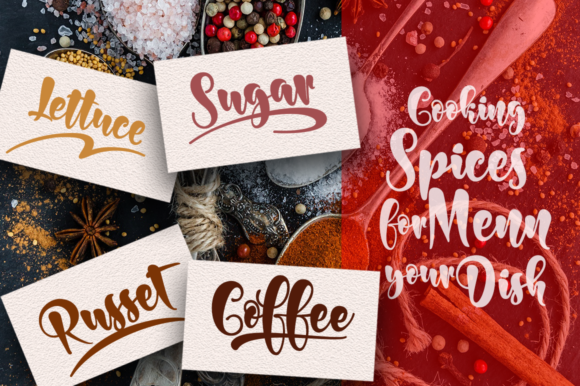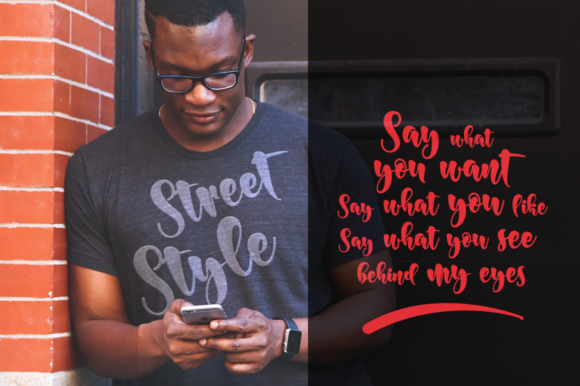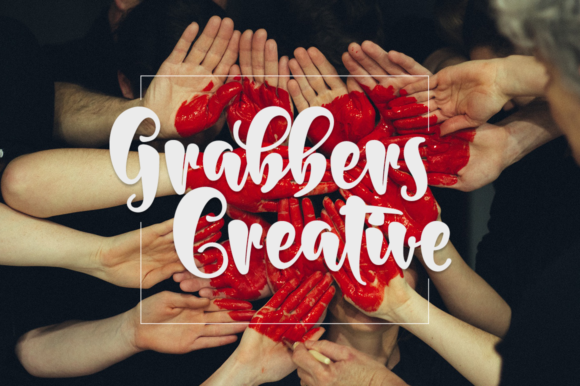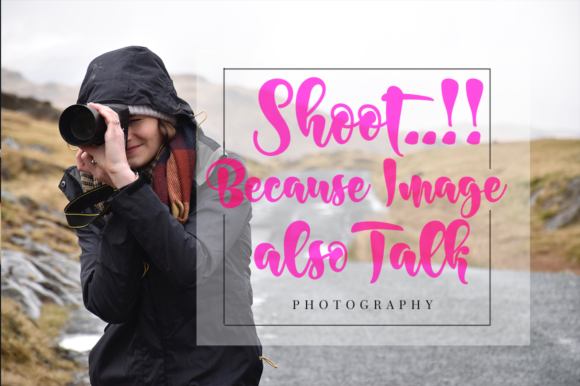
Bonita Font
About Bonita Font
The Bonita is a beautiful bold font. It has an unique, striking look which is great for every design that needs to stand out.